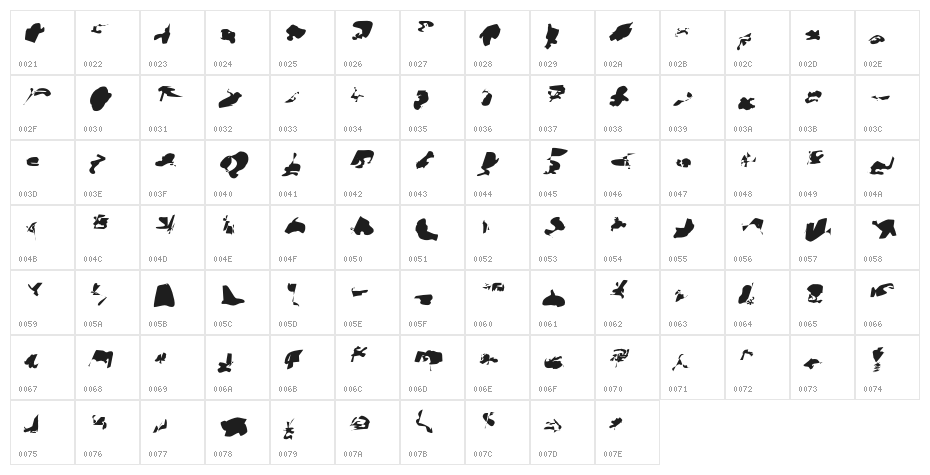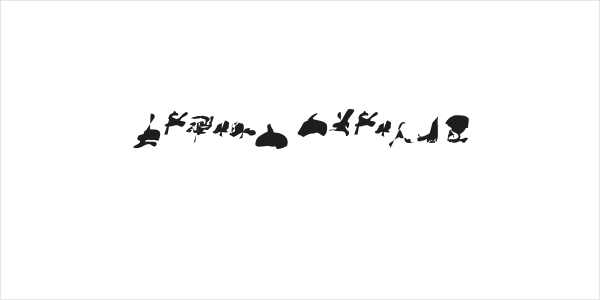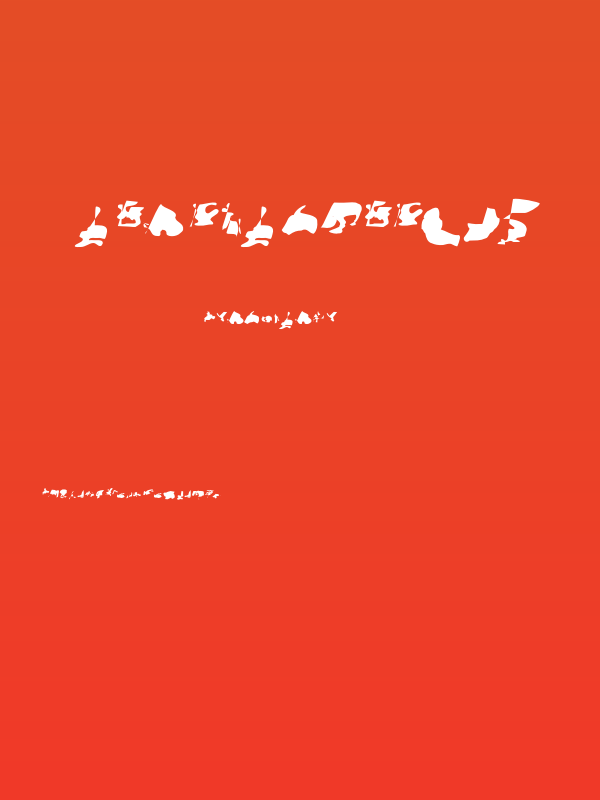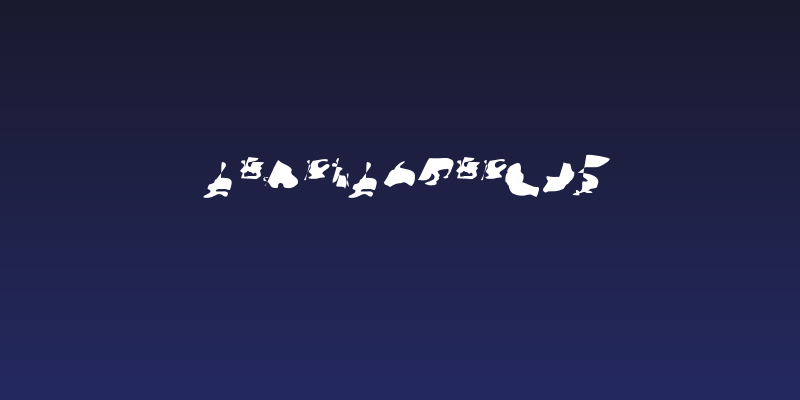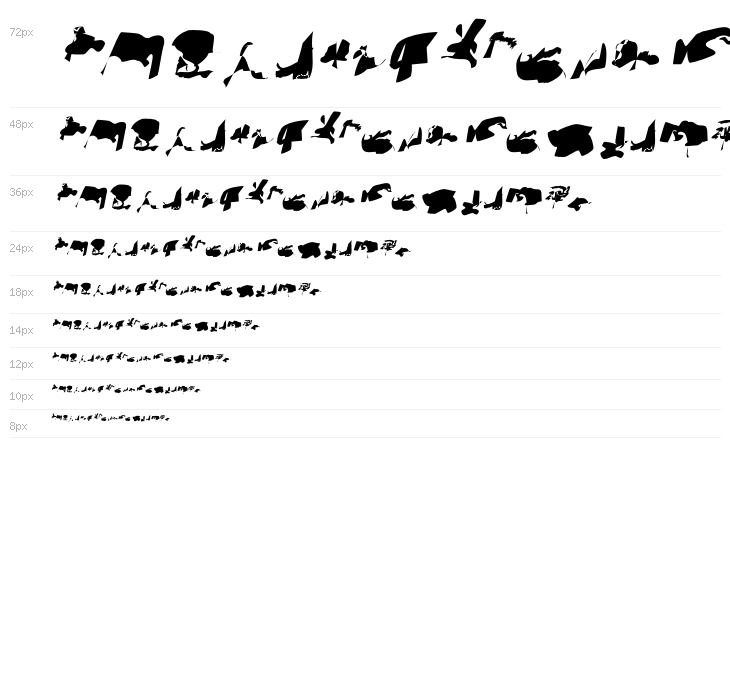
Alpina Oblique Font
Alpina Oblique Description
This font features a highly abstract and artistic design, characterized by its fragmented and distorted letterforms. Each character appears as if it has been deconstructed and reassembled in a chaotic yet visually intriguing manner. The strokes are bold and irregular, creating a sense of movement and dynamism. The overall appearance is reminiscent of modern art, with a focus on breaking traditional typographic conventions. This font is not suitable for body text due to its complexity but can be used effectively in creative and experimental design projects.
| Overall Style | Modern, Artistic |
| Use Case | Logos, Art projects, Posters |
| Proposed Projects | Ideal for avant-garde posters, album covers, and experimental art projects. |